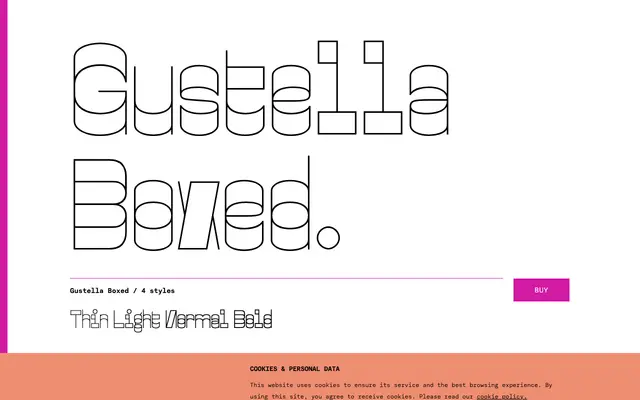
Gustella Boxed
TYPE BY · Thomas Thiemich · 2019
A reverse-contrast display face with extreme stroke inversion, designed as part of a four-variant superfamily conceived for layering and high-impact typographic work.
Part of the Gustella superfamily by Thomas Thiemich, Boxed is one of four stylistic variants — alongside Solid, Stripes and Inline — all sharing identical metrics so they can be set independently or overprinted. The design draws on a lineage running from nineteenth-century Western poster types through 1970s psychedelic lettering, pushing reverse contrast to a contemporary extreme with digital precision. Ten stylistic sets, comprehensive figure variants, fractions and case-sensitive punctuation extend its utility well beyond headline use.
Gustella Boxed is a reverse-contrast display typeface with extreme stroke weight inversion, descending from the Western 'Wanted'-poster slab tradition and 1970s psychedelic lettering; its dramatic contrast and decorative boxing place it firmly in the display category.